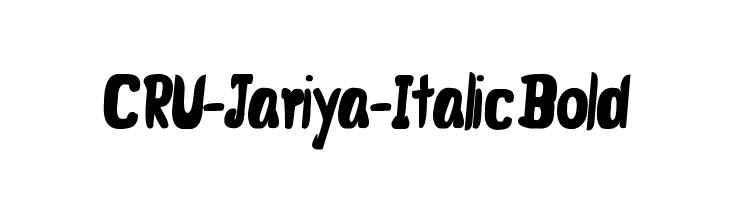
( Jariya - artd2304-jariya.blogspot.com/ )
A bold, playful font with whimsical character shapes and a modern decorative style.
( Jariya - artd2304-jariya.blogspot.com/ )
A bold, italic font with playful, rounded characters.
( Jariya - artd2304-jariya.blogspot.com/ )
A playful and quirky font with a handcrafted feel and varying stroke widths.
( Jariya - artd2304-jariya.blogspot.com/ )
A playful, italic font with a hand-drawn, dynamic style.